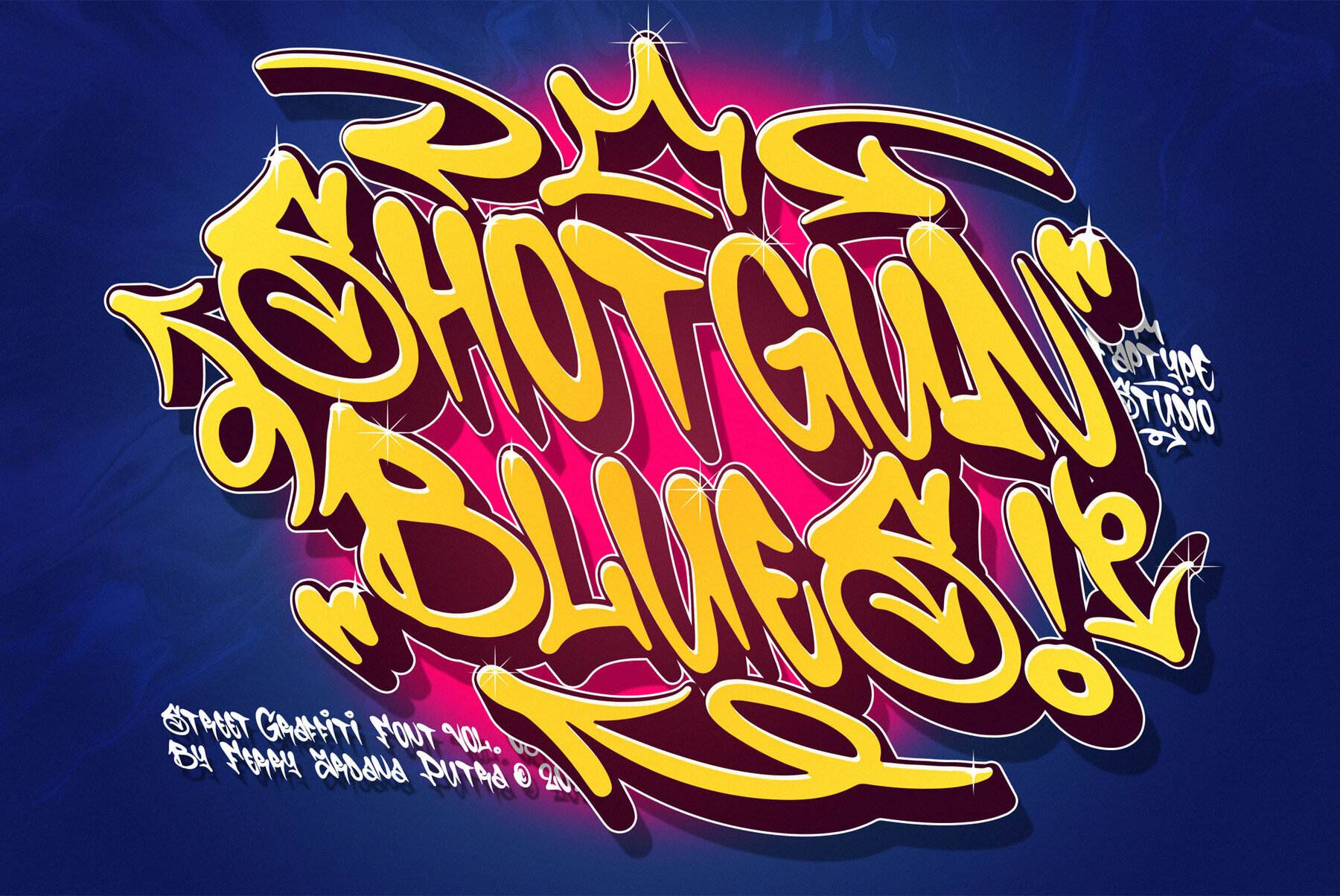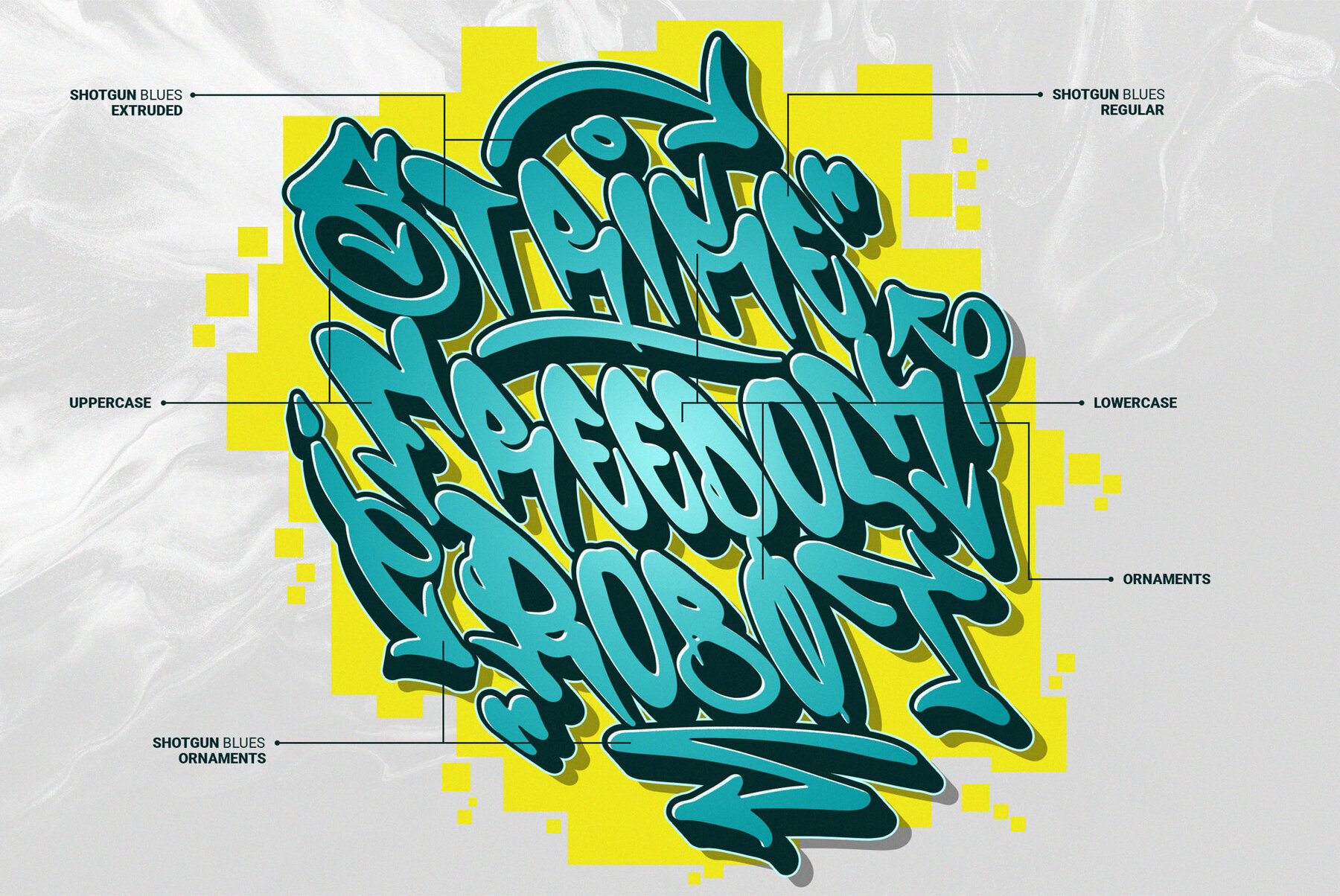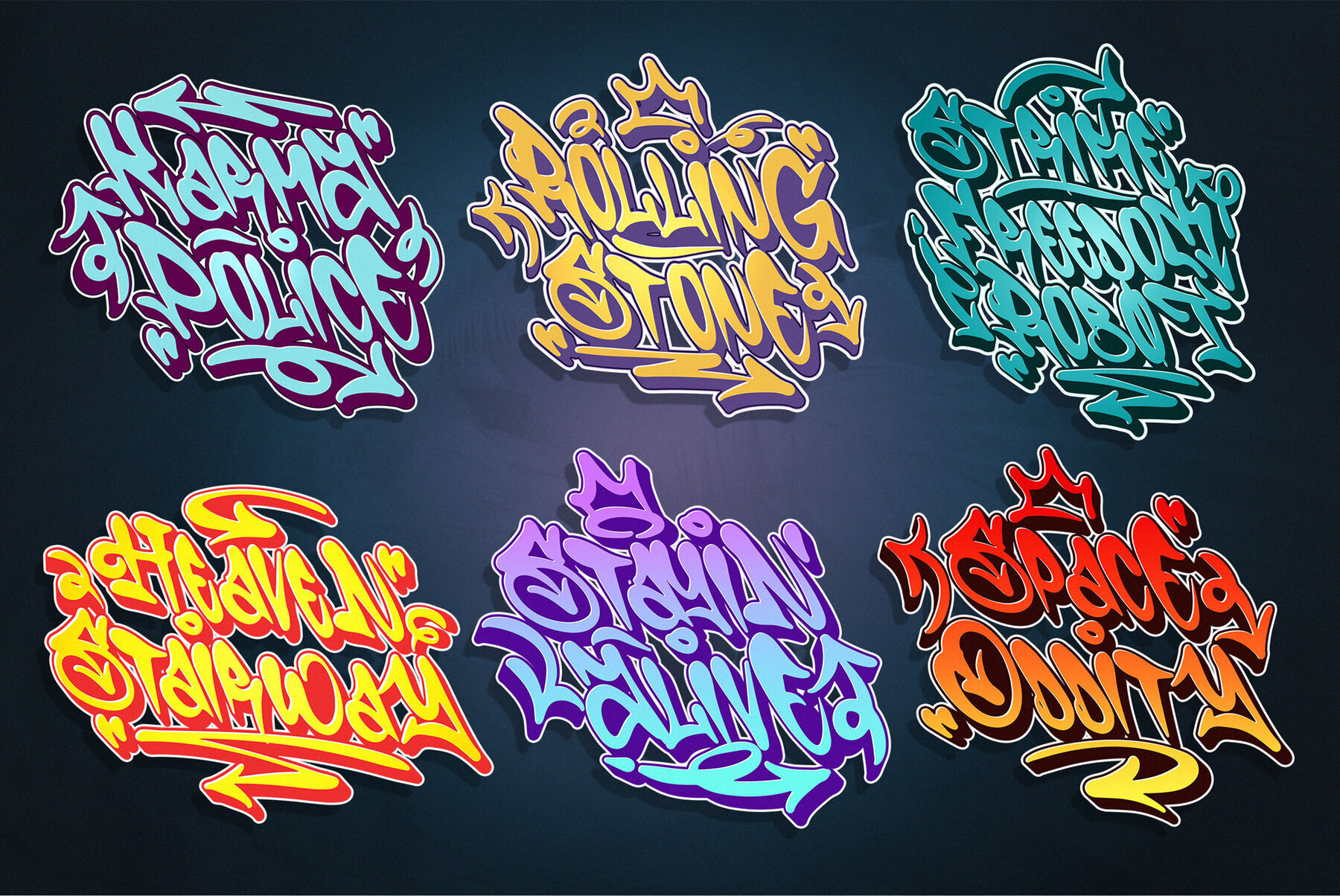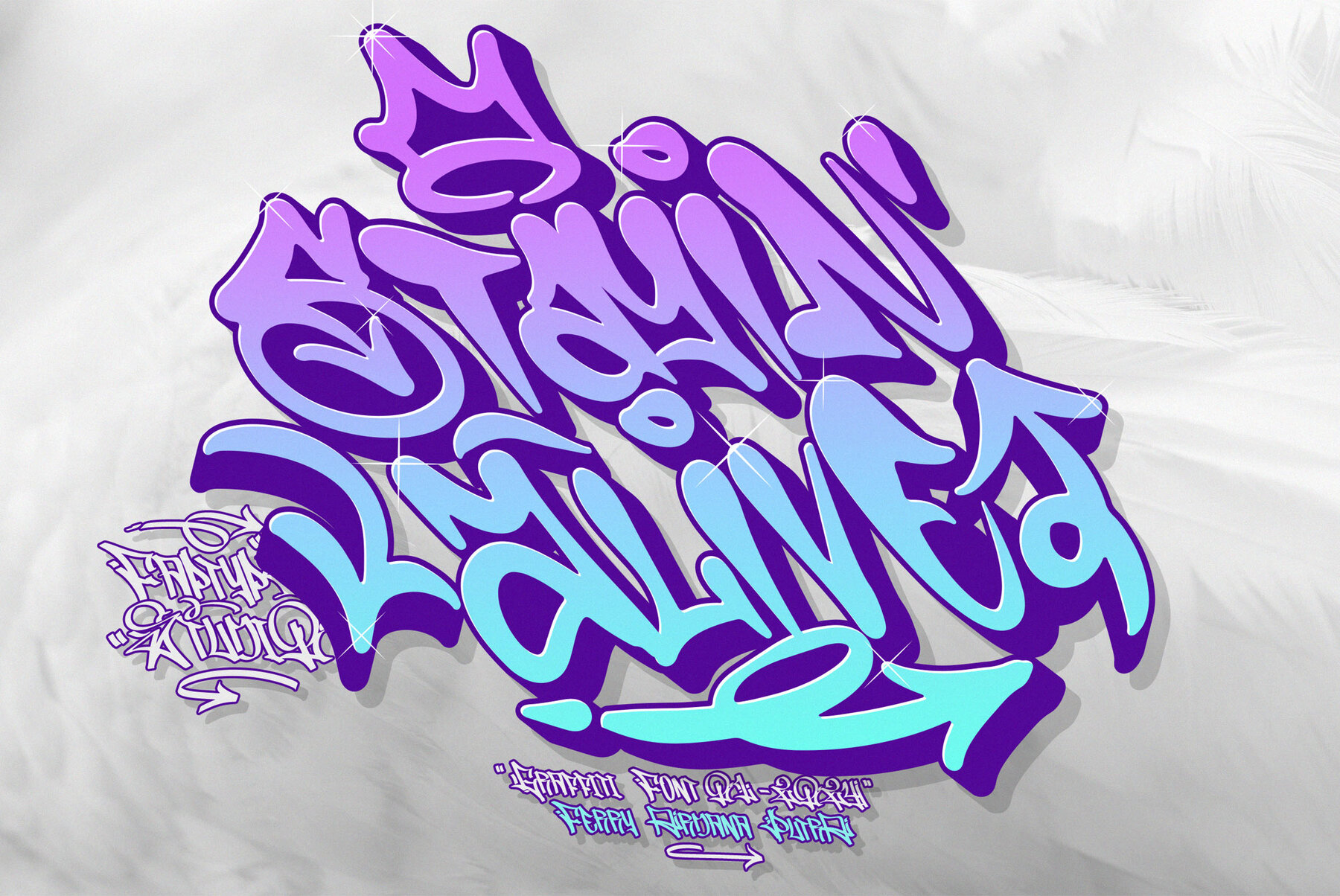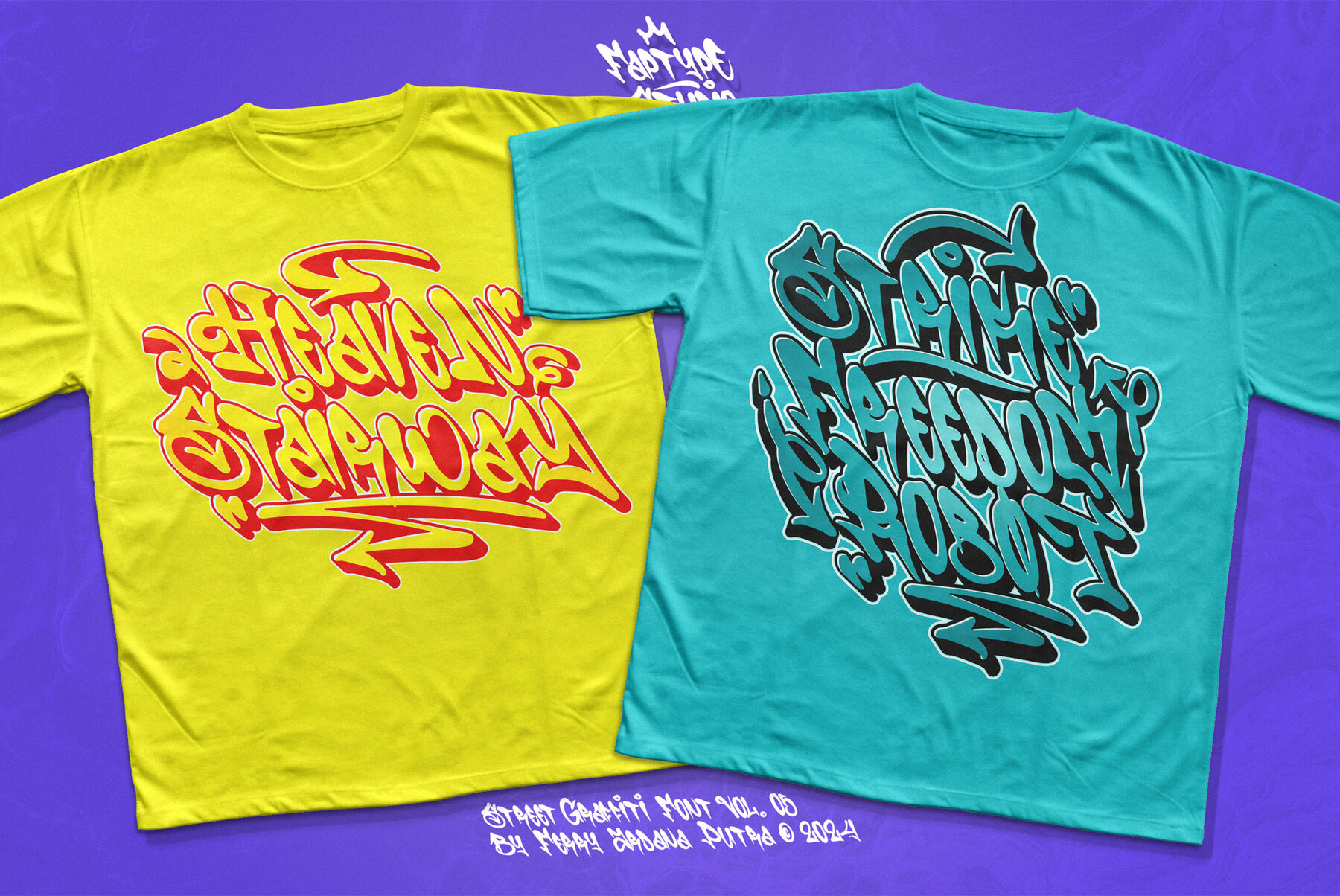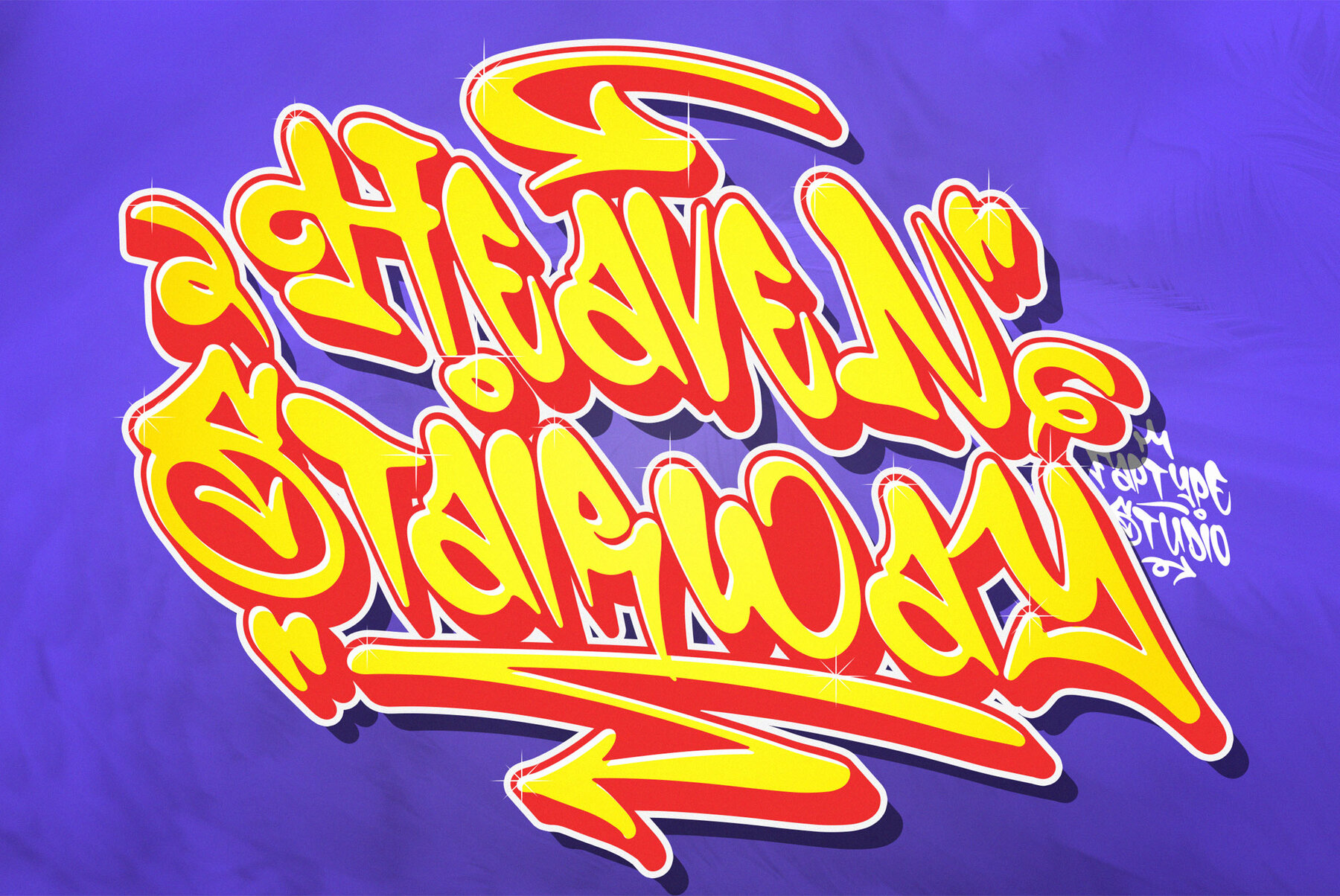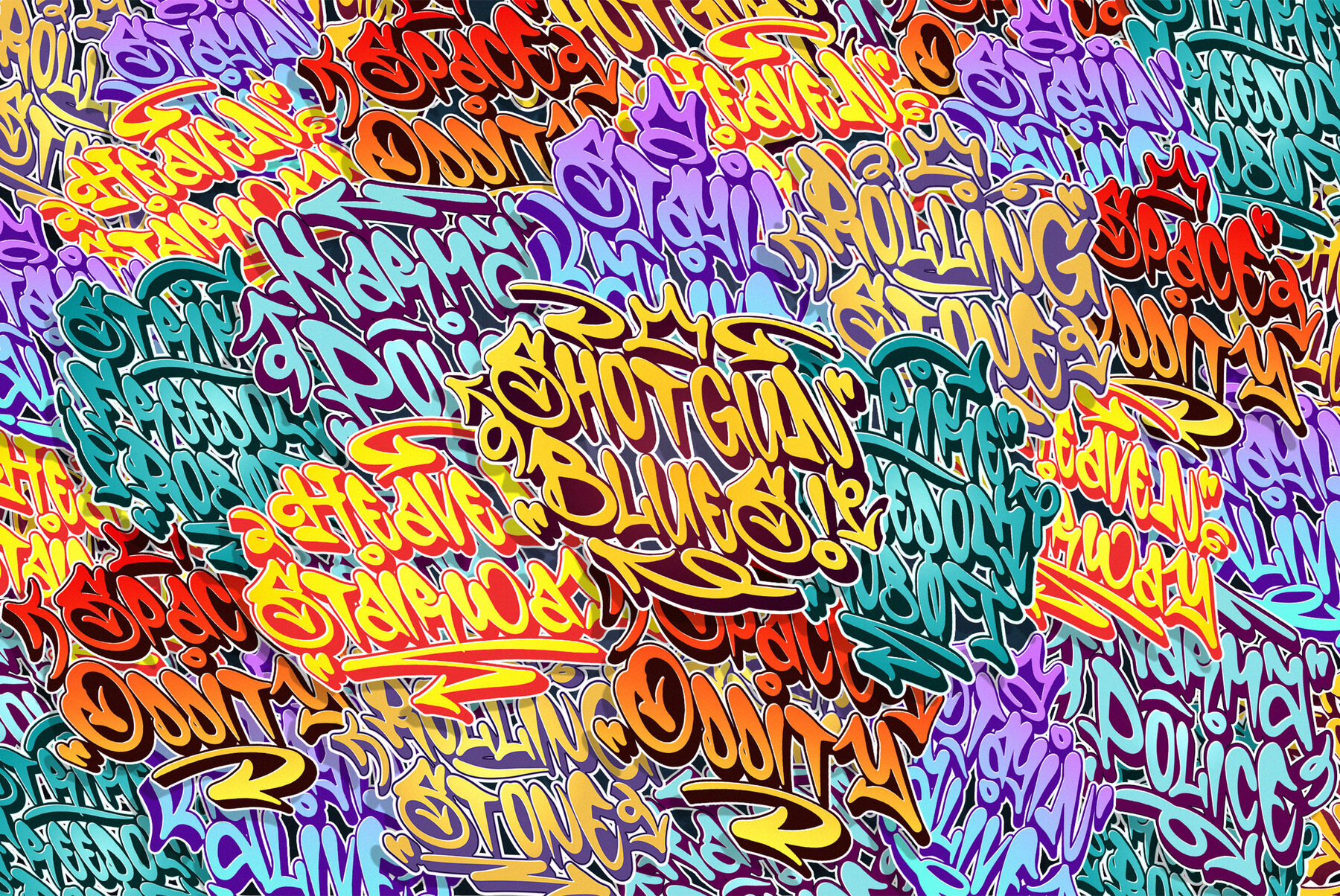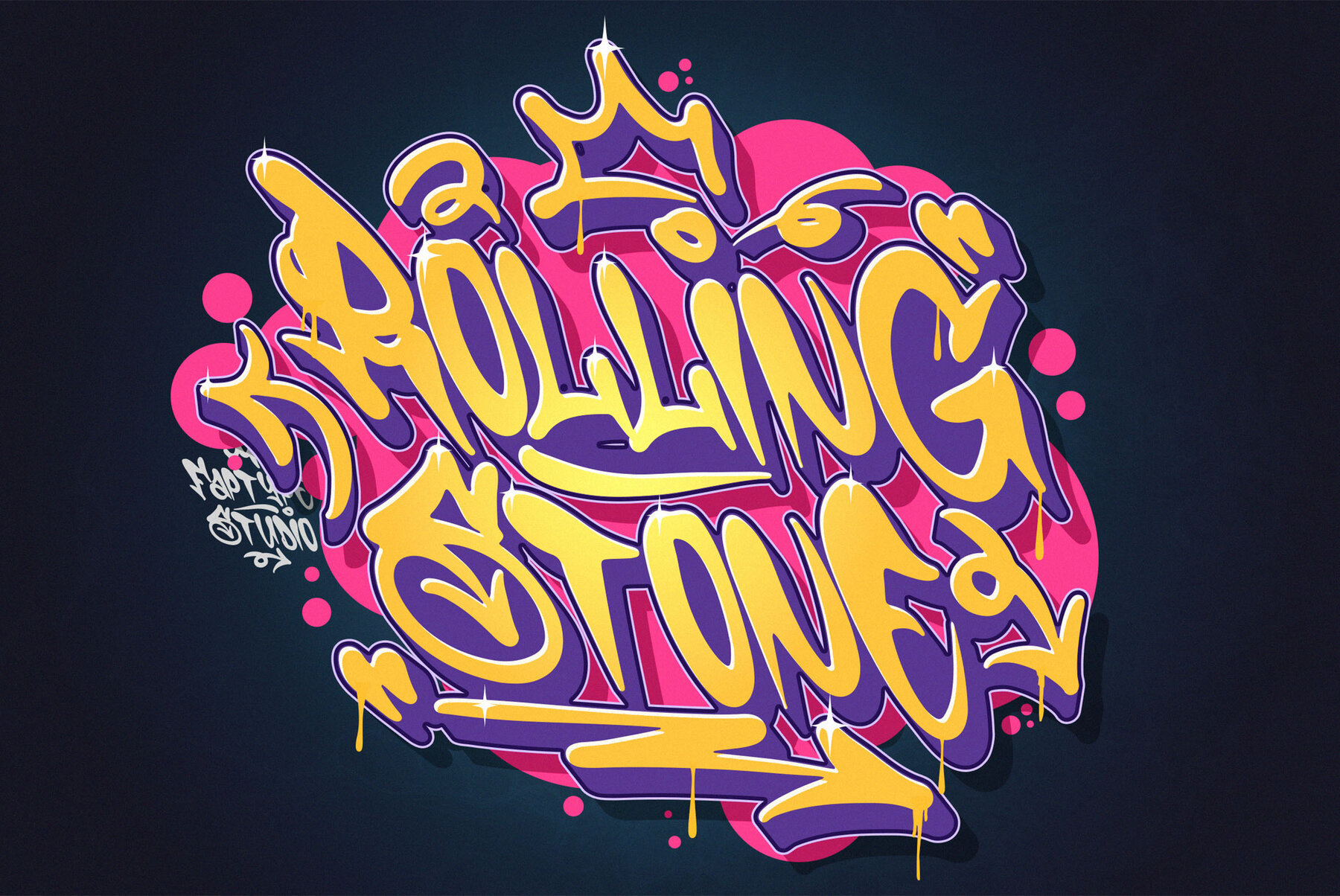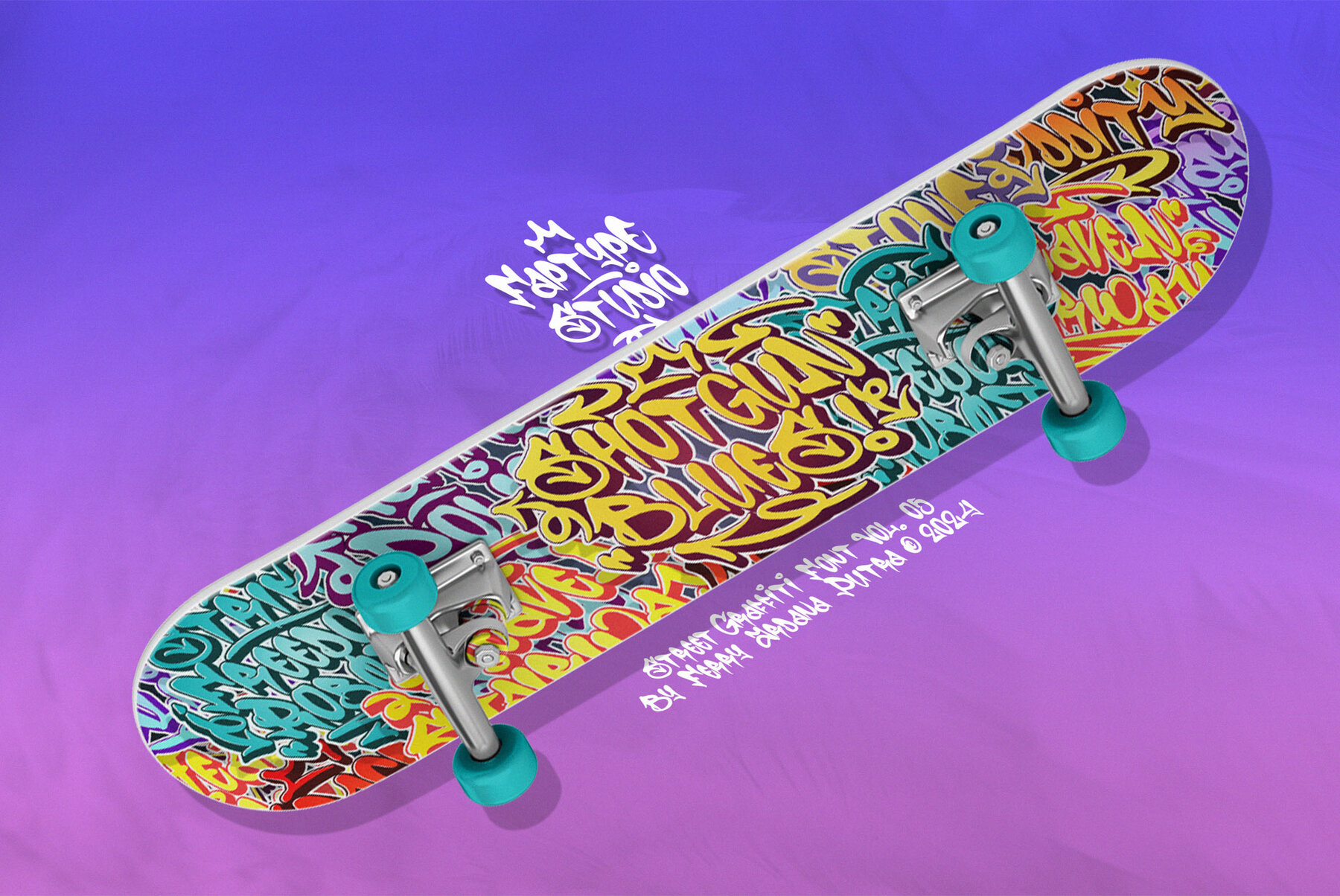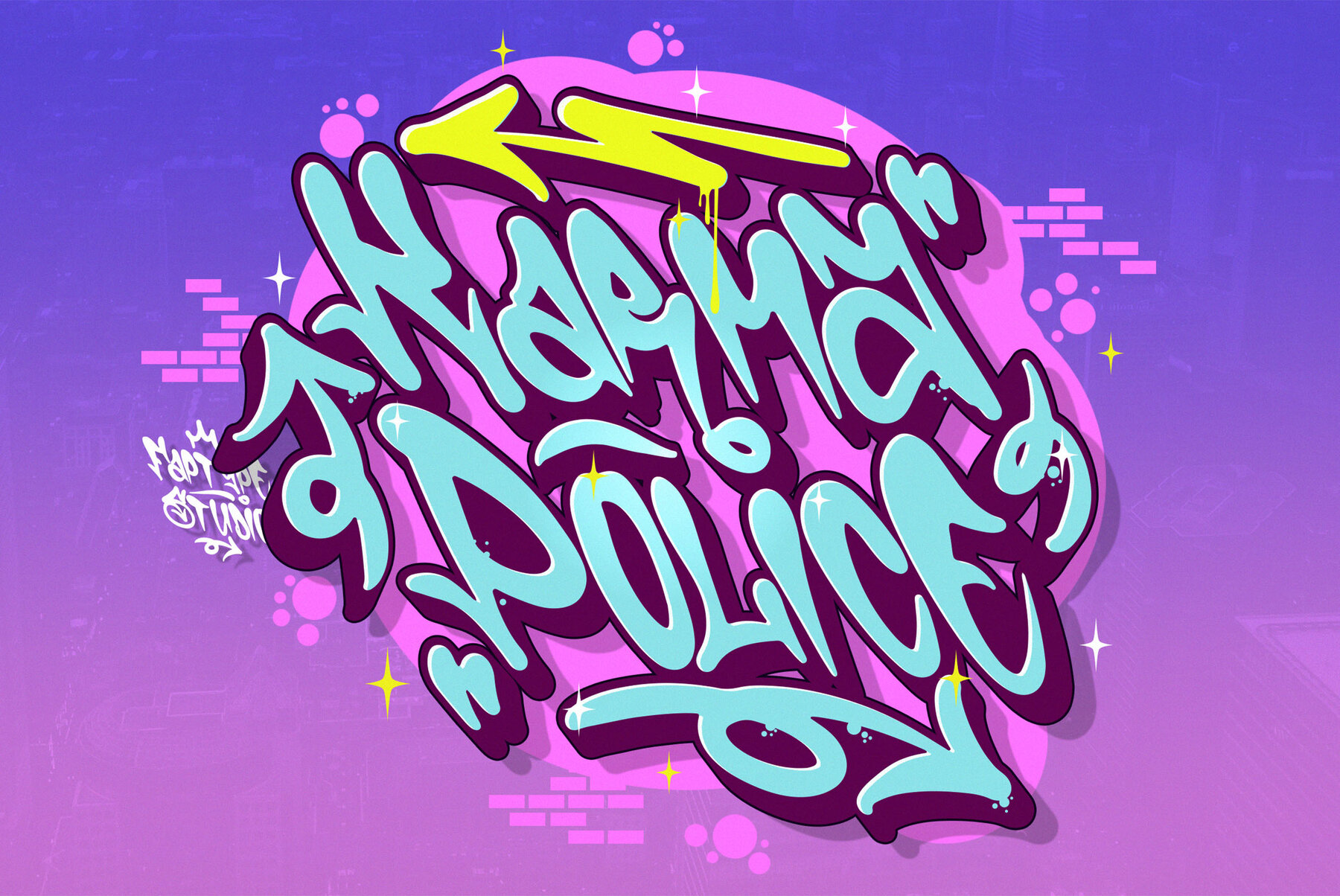
Shotgun Blues Graffiti Font
Shotgun Blues
Shotgun Blues Extruded
Shotgun Blues Ornaments
Introducing "Shotgun Blues," our bold and expressive freestyle graffiti font that unleashes the raw energy of the streets onto your creative canvas. Designed for those who crave a rebellious edge and an urban aesthetic, this font is more than a typeface—it's a statement. "Shotgun Blues" embodies the spontaneous and dynamic nature of freestyle graffiti. Each character carries the DNA of street art, showcasing fluid strokes, sharp angles, and an unmistakable urban attitude. Whether you're designing for hip-hop culture, streetwear, or any project that demands an unapologetically urban vibe, this font is your go-to choice. To amplify the rebellious spirit, "Shotgun Blues" comes with a set of additional graffiti ornaments. These elements allow you to embellish your text with tags, drips, and artistic accents, providing an authentic street art experience. Customize your designs with these graffiti-inspired ornaments for a truly unique and edgy aesthetic. Taking graffiti to the next dimension, "Shotgun Blues" introduces an extruded version. Transform your text into eye-catching 3D graffiti with depth and impact. This feature opens up a realm of possibilities for creating bold and immersive designs that pop off the page or screen. Whether you're working on album covers, street art campaigns, or any project where attitude and style are paramount, "Shotgun Blues" is your tool for making a statement. Embrace the freestyle graffiti vibes, experiment with graffiti ornaments, and elevate your designs to the next level with the extruded version. Unleash the raw power of the streets with "Shotgun Blues" and let your creativity run wild in the urban playground. Versatile Applications: Shotgun Blues features: